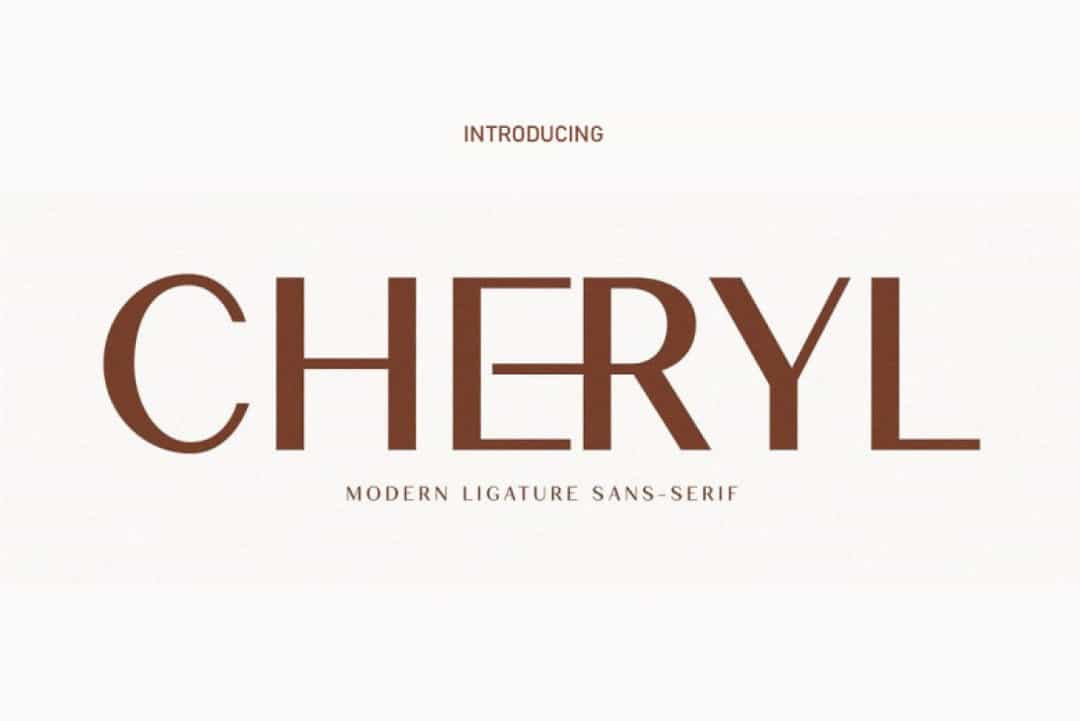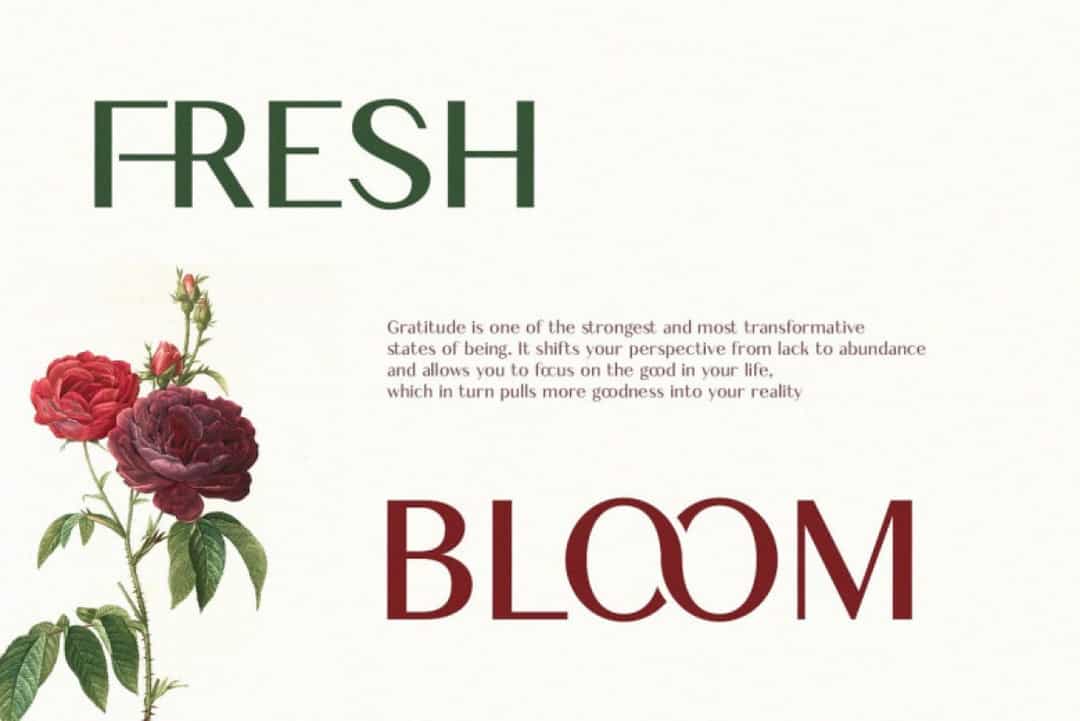
Cheryl is an elegant contemporary sans serif font designed with OpenType features to offer modern elegance for magazines, logos and social media posts. Perfectly compatible and ready to create that next layout – Cheryl offers chic sophistication suitable for magazines logos social media posts etc! As well as including punctuation marks ligatures numbers plus support for multiple languages!